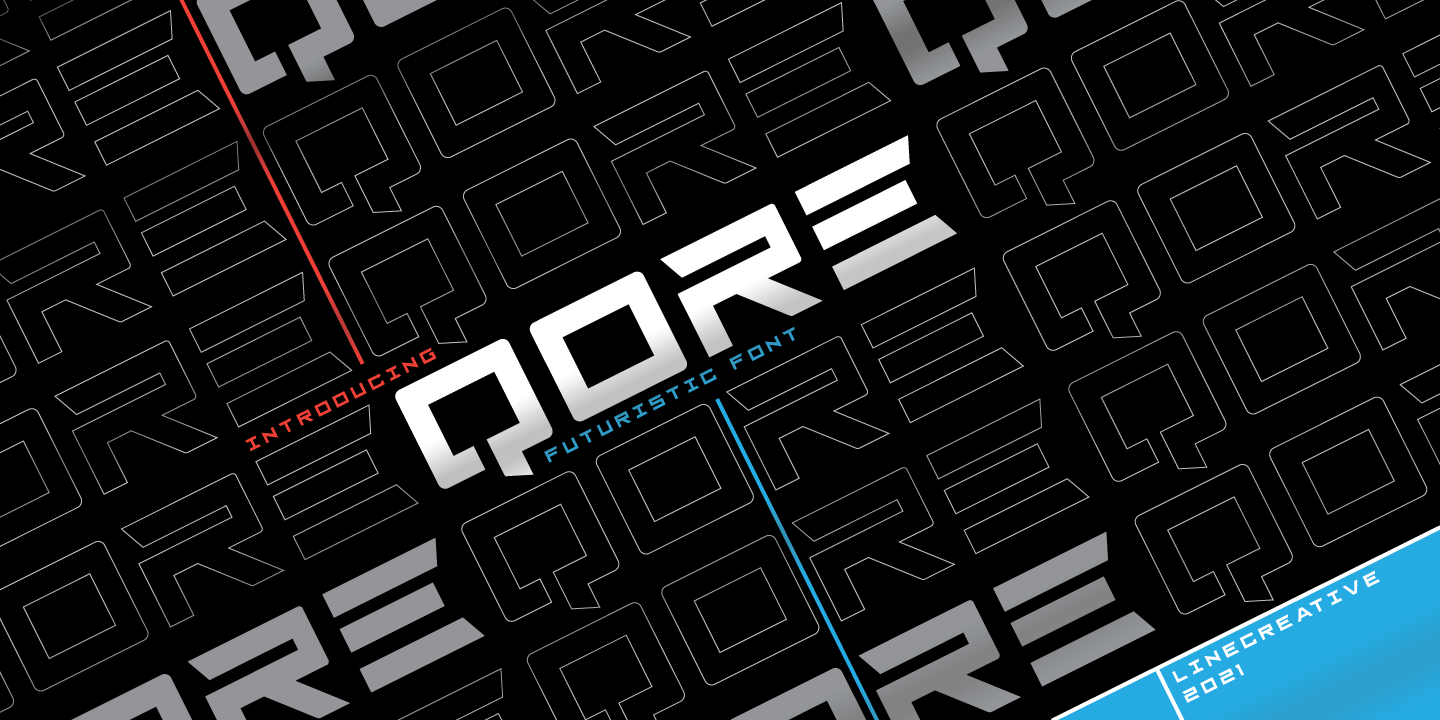
Qore Font is perfect for core technology branding, essential system graphics, fundamental software materials, central computing communications, vital infrastructure signage, primary tech publications, foundational design campaigns, and essential core typography.
What makes Qore Font exciting is its essential core character that embodies fundamental strength and central importance through solid letterforms and foundational appeal. This powerful typeface features core construction, essential details, and fundamental personality that captures the essence of central systems and vital foundations, making it ideal for projects seeking to communicate core strength, essential quality, and fundamental reliability with authentic core appeal and foundational sophistication.
The Qore Font family includes Light, Regular, Medium, and Bold weights, each maintaining the characteristic core strength and essential appeal that define this distinctive typeface's fundamental personality and vital sophistication.
Qore Font Free Download provides access to a typeface that perfectly captures the essence of core strength and fundamental importance. This essential font brings authentic foundational aesthetics to contemporary projects, making it essential for tech companies, infrastructure organizations, and fundamental service brands targeting audiences who value core reliability and essential functionality. The font's core construction and foundational details ensure immediate recognition of strength and importance while its distinctive character creates solid connections among individuals seeking essential solutions and core excellence. Whether designing core technology materials, essential service campaigns, or fundamental brand communications, this font delivers the core authenticity and foundational sophistication that reliability-focused audiences expect. Its fundamental foundation and core symbolism make it indispensable for projects celebrating essential systems, core technology, and the vital importance of fundamental infrastructure, ensuring communications resonate with audiences who value the core strength, essential reliability, and foundational excellence that define authentic core experiences and vital system performance across diverse technology and infrastructure applications.